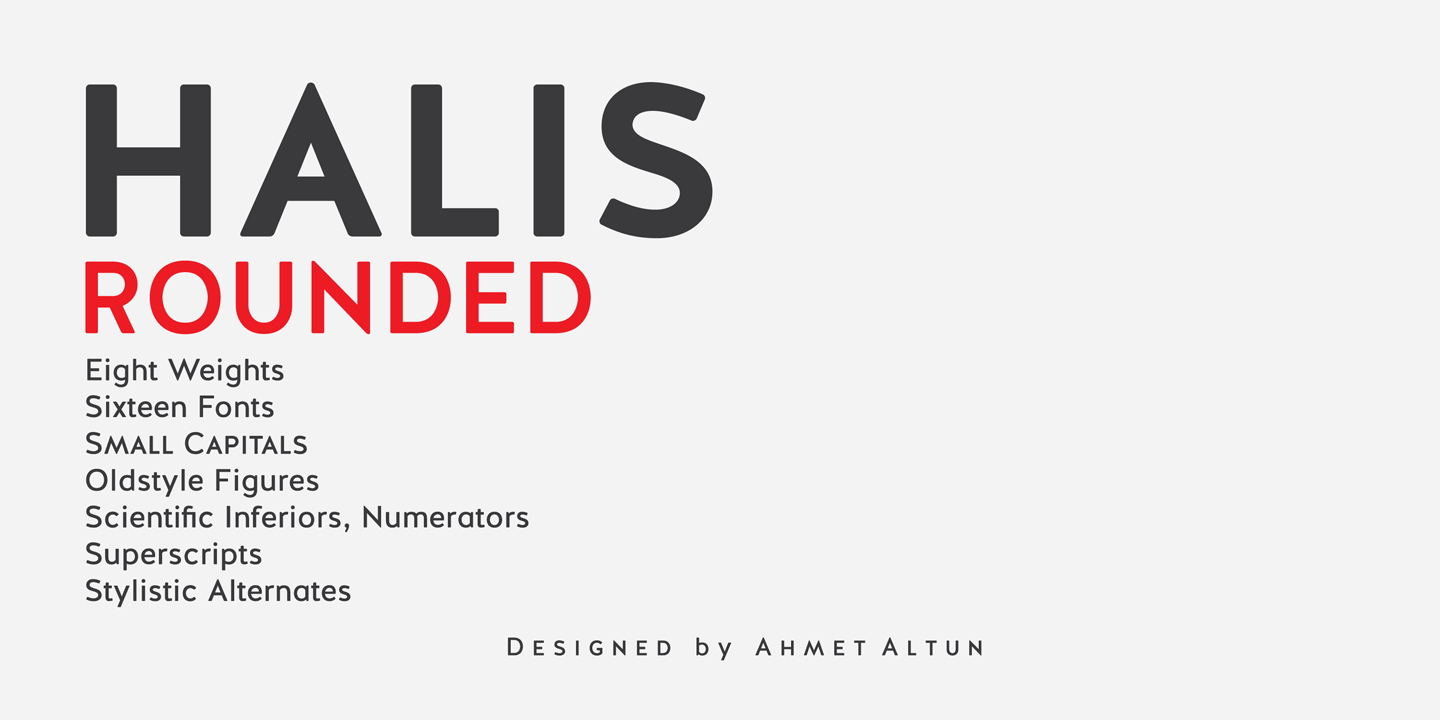
Halis Rounded Font is perfect for friendly app interfaces, children's educational materials, playful brand identities, soft tech company logos, approachable healthcare branding, gentle childcare center signage, warm family service designs, friendly customer service materials, inclusive community projects, and welcoming user experience designs that require soft sophistication and human warmth.
This font is exciting because it masterfully combines professional sophistication with gentle approachability through carefully rounded letterforms that create an instantly welcoming and trustworthy atmosphere without sacrificing contemporary style. Halis Rounded Font features softened edges and harmonious proportions that communicate friendliness and accessibility while maintaining the clarity and reliability essential for modern business applications.
Halis Rounded Font family includes Regular, Bold, Light, Medium, Thin, Black, Italic, and Condensed versions, plus friendly symbols, soft ornaments, rounded icons, and welcoming design elements that enhance the approachable aesthetic and provide comprehensive solutions for user-friendly and community-focused applications.
For friendly and approachable design projects, Halis Rounded Font Free Download delivers exceptional warmth and contemporary appeal. The font's rounded letterforms and gentle character make it perfect for healthcare providers, educational institutions, and family-focused businesses seeking to communicate trust, accessibility, and human connection. Its soft sophistication appeals to audiences seeking comfortable, non-intimidating experiences. The character set includes rounded numerals and friendly symbols specifically designed for welcoming user interfaces and community communications. Professional designers appreciate its ability to convey both professionalism and warmth while maintaining excellent readability across digital platforms, educational materials, and community branding, making it essential for organizations that want to project approachability, inclusivity, and the gentle confidence that builds lasting relationships with diverse audiences.